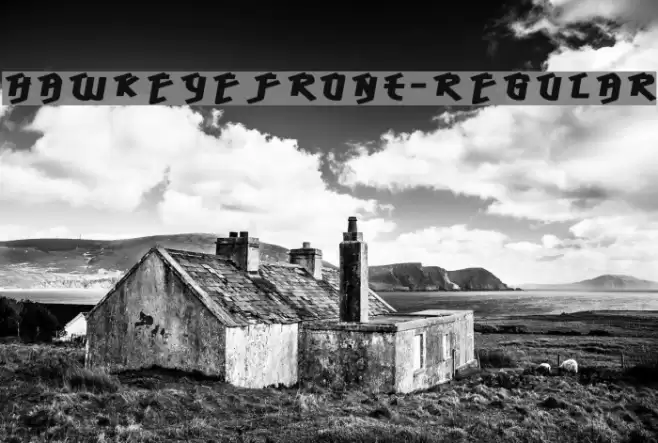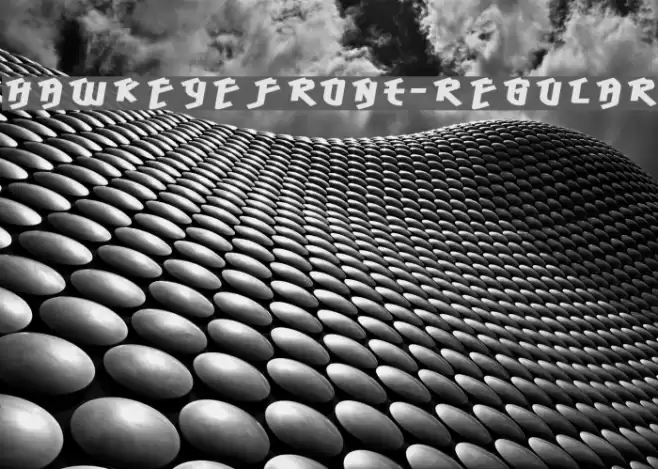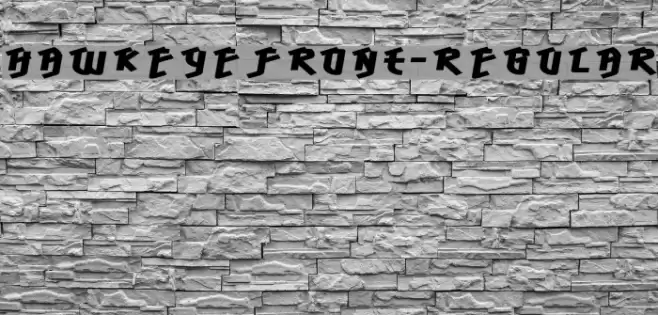
HawkeyeFront-Regular Font
HawkeyeFront-Regular Description
This font exhibits a bold and dynamic style with sharp, angular edges and a slightly italicized slant, giving it a sense of movement and energy. The characters are distinct and have a geometric quality, with consistent stroke thickness throughout. The uppercase and lowercase letters maintain a cohesive design, while the numerals and special characters complement the overall aesthetic. The font's unique style makes it suitable for projects that require a strong visual impact.
A bold, angular font with a dynamic, geometric style from Uncategorized fonts.
- Proposed Projects: Ideal for sports branding, action movie posters, video game titles, and dynamic logo designs.